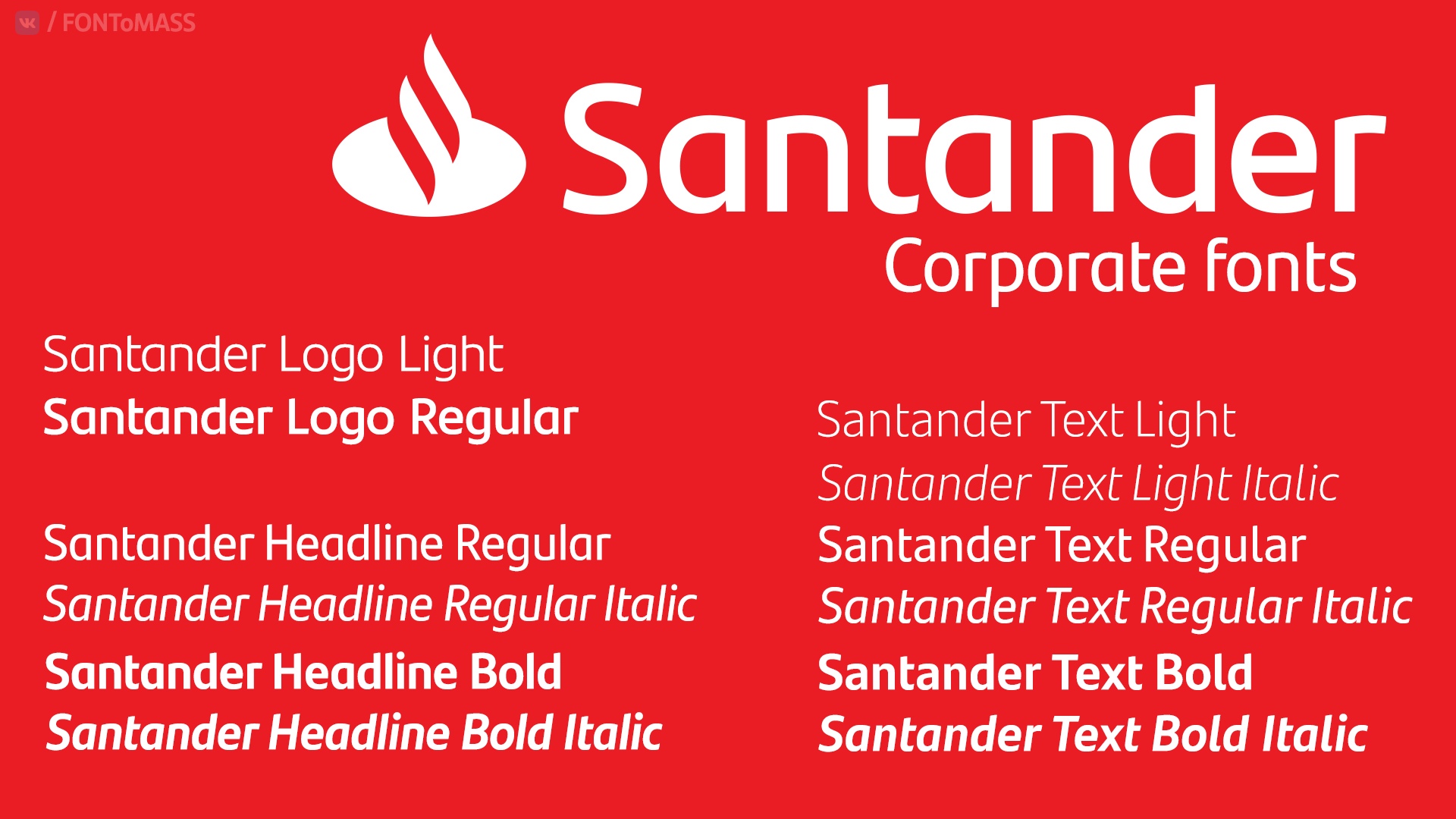
Santander - Corporate Font
Santander - Corporate Font is perfect for financial branding, banking communications, corporate presentations, annual reports, investment materials, professional documents, business correspondence, institutional signage, executive communications, and corporate identity systems.
Santander - Corporate Font is exciting because it embodies the trust and reliability of international banking with its professional letterforms that communicate financial stability, corporate excellence, and institutional authority. Its sophisticated design philosophy reflects the global standards of banking communication, making it perfect for organizations that need to convey credibility, security, and professional competence in competitive financial markets.
The Santander - Corporate Font family includes Light, Regular, Medium, Bold, Heavy weights, corresponding Italic styles, Condensed versions, Extended variations, Display cuts, and Corporate alternates, providing designers with comprehensive tools for creating authoritative financial brands and professional business communication systems.
Santander - Corporate Font Free Download represents the pinnacle of corporate typography, featuring precision-engineered letterforms that excel in formal business communications and institutional applications. This distinguished typeface combines international banking standards with contemporary functionality, creating a professional visual language that inspires confidence and trust among clients, investors, and business partners worldwide.
Whether you're developing banking identities, designing financial reports, creating investment presentations, or producing corporate communications, Santander - Corporate Font provides the institutional foundation needed for credible financial branding. Its authoritative character makes it particularly effective for banks, investment firms, insurance companies, and financial service providers that require professional gravitas and regulatory compliance.
Perfect for financial marketers, corporate communications teams, investment advisors, and brand managers working with financial institutions, this font offers the professional qualities essential for successful financial sector positioning. The typeface's systematic approach ensures consistent performance across complex financial documents, regulatory filings, and international business communications.